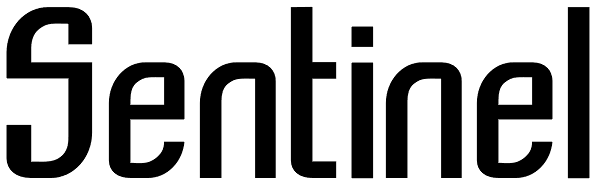
Sentinel
Common use(s) of Comicraft's All-new, All-different SENTINEL font include FACTOR-X, X-MAN, GENERATION NEXT and X-CALIBRE. Possible Side Effects: This font should not be used if you are trapped in a world you never made or a world full of people that...